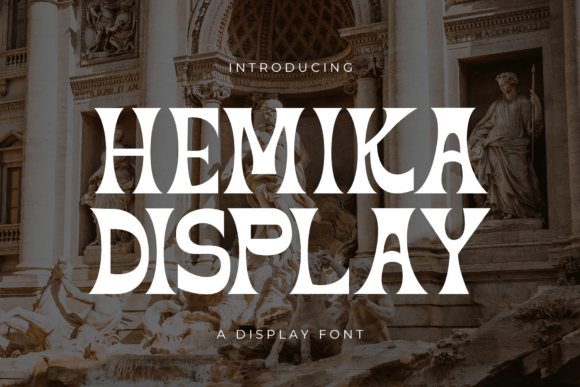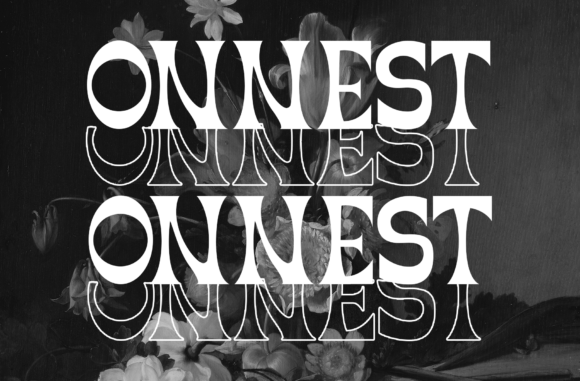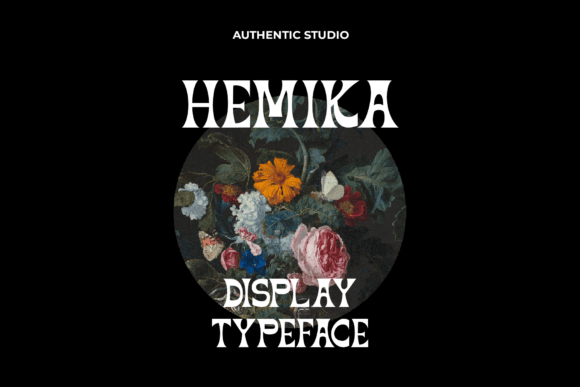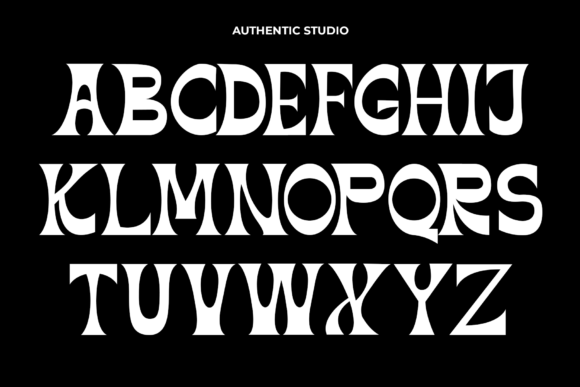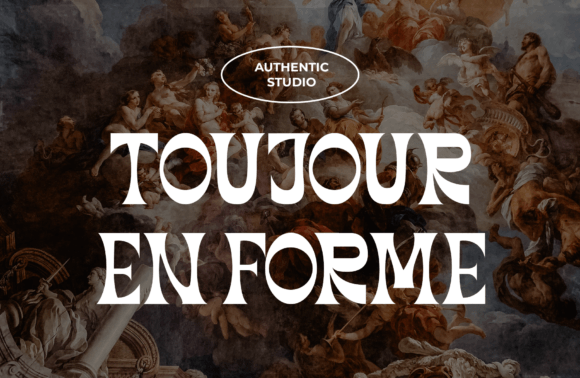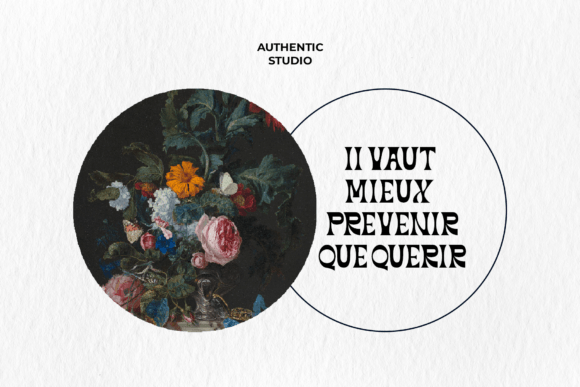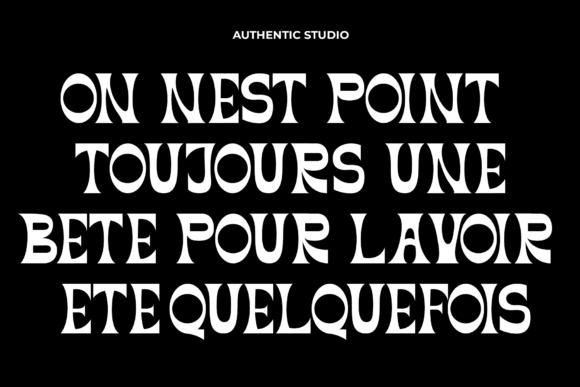
The Perfect Dose of Fun for Your Next Design Project
Have you ever been stuck on a design project, staring at a blank canvas, feeling like you’ve tried every font combination under the sun? That’s when you know it’s time to shake things up and bring in some personality.
That’s where Hemika Display Font comes in – a hipster serif font that’s equal parts retro, bold, and playful. This font is the perfect antidote to a design project that’s feeling stale, adding a much-needed dose of fun and whimsy to your work. Whether you’re designing a new logo, creating a social media campaign, or crafting a brand identity, Hemika Display Font is the perfect tool to help you stand out from the crowd.
For designers, Hemika Display Font is a valuable addition to any toolkit, offering a unique and eye-catching way to express your creativity and showcase your brand’s personality.
Hemika Display Font Key Features
- Unique Characteristics: This display font features a bold, geometric design with a mix of rounded and sharp edges, creating a unique visual identity that stands out in modern designs.
- Font Pairing: The font’s geometric design makes it an excellent pairing option for other display fonts, as well as serif and sans-serif fonts, allowing for endless design possibilities.
Hemika Display Font Review
At first glance, Hemika Display Font caught my eye with its unique and elegant design ✨. The font’s geometric shape and clean lines give it a modern and sophisticated feel, making it perfect for titles, headings, and other display text. I love how it can add a touch of sophistication to any design project.
Here are some of the things that work well about Hemika Display Font:
- Unique and elegant design ✨
- Perfect for titles, headings, and other display text
- Modern and sophisticated feel
- Easy to read, even at small font sizes
- May not be suitable for body text due to its condensed shape ⚠️
- Limited language support, may not work well with non-Latin scripts
- Not as versatile as some other display fonts, may not work well in smaller sizes
Overall, I think Hemika Display Font is a great choice for designers looking for a unique and elegant display font. While it may have some limitations, its modern and sophisticated feel makes it a great addition to any design project.
Tips for Getting the Most Out of Hemika Display Font
Use Hemika Display Font for titles, headings, and emphasis in your designs. It’s ideal for creating bold and eye-catching text. Experiment with different font sizes and colors to maximize its impact.
Hemika Display Font is commonly used for:
- Movie and TV show title sequences
- Graphic design and branding projects
Alternatives to Hemika Display Font
Playfair Display is a high-end, elegant serif font perfect for luxury brands, high-end fashion, and fine dining. It features intricate details and ornate flourishes. Use it when you want to convey sophistication and refinement. Compared to Hemika Display Font, Playfair Display is more ornate and luxurious, making it suitable for high-end projects.
Great Vibes is a beautiful, elegant script font ideal for wedding invitations, luxury brands, and high-end advertising. It features flowing connections and a sophisticated feel. Use it when you want to create a sense of romance and elegance. Compared to Hemika Display Font, Great Vibes is more cursive and flowing, making it suitable for projects that require a touch of whimsy.
Q: What is the character set and language support for Hemika Display Font?
Hemika Display Font includes a comprehensive character set with over 250 glyphs, supporting multiple languages, including English, Spanish, French, German, Italian, and many more. The font also includes ligatures, alternates, and swashes for added design flexibility.